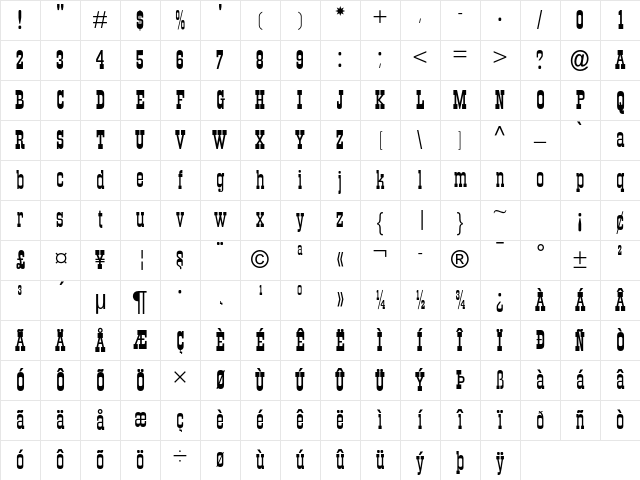
Figaro MT Std Regular Free Font
Figaro MT Std Regular
Foundry: Agfa Monotype Corporation
Design Context for Figaro MT Std
Figaro MT Std is a composed and adaptable typeface that performs quietly and consistently across a wide range of design contexts.
Pro Tip: Use Figaro MT Std in both headline and body roles to test its range before committing to a single application.